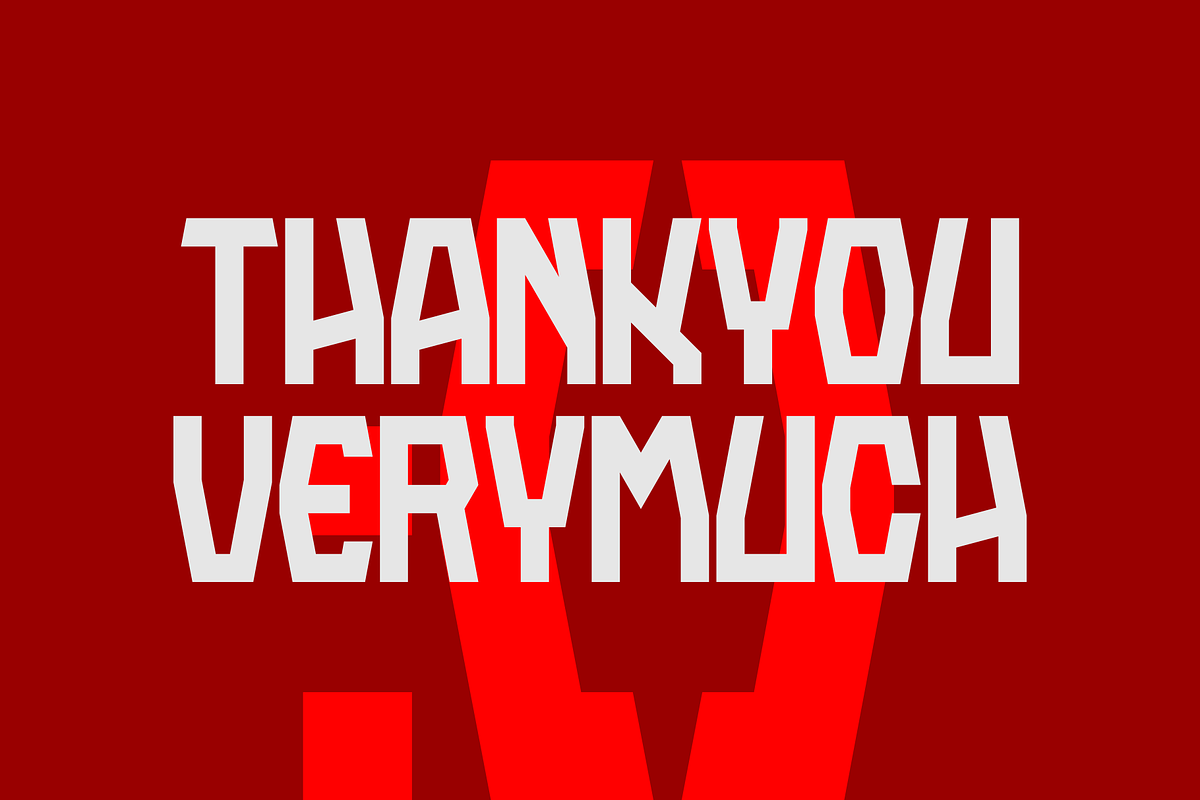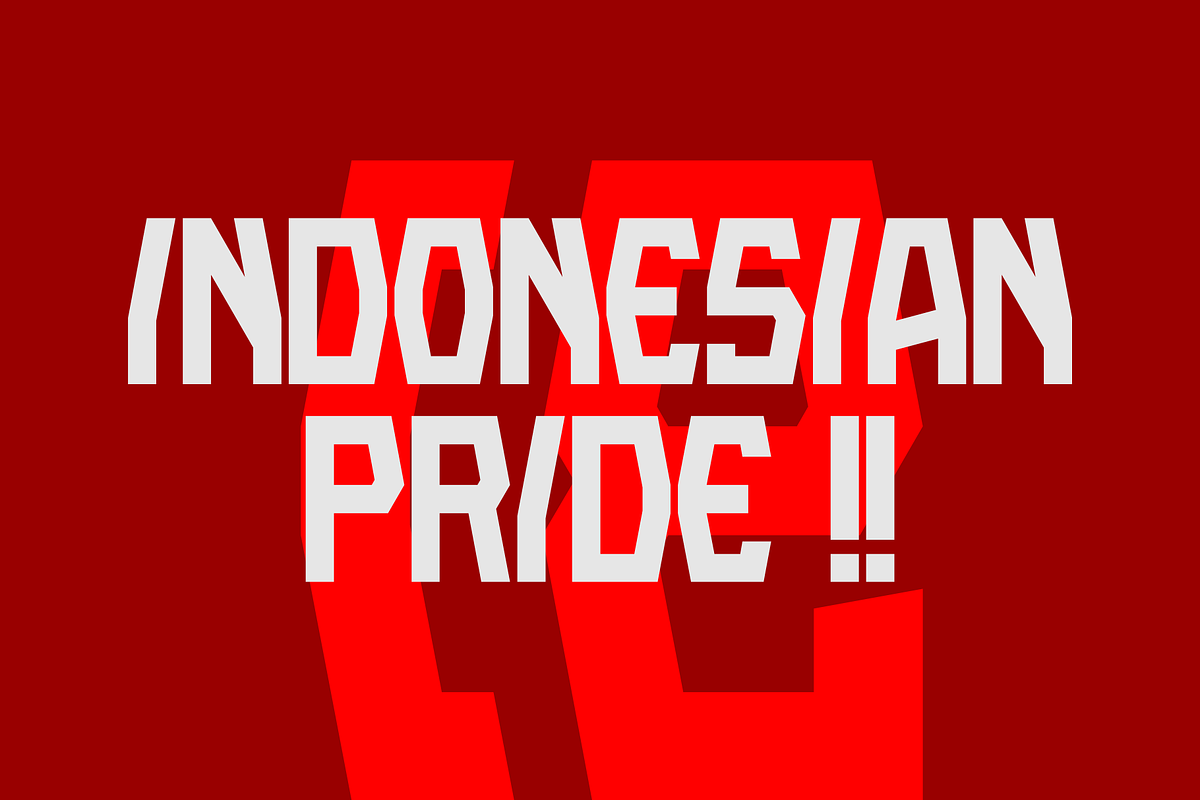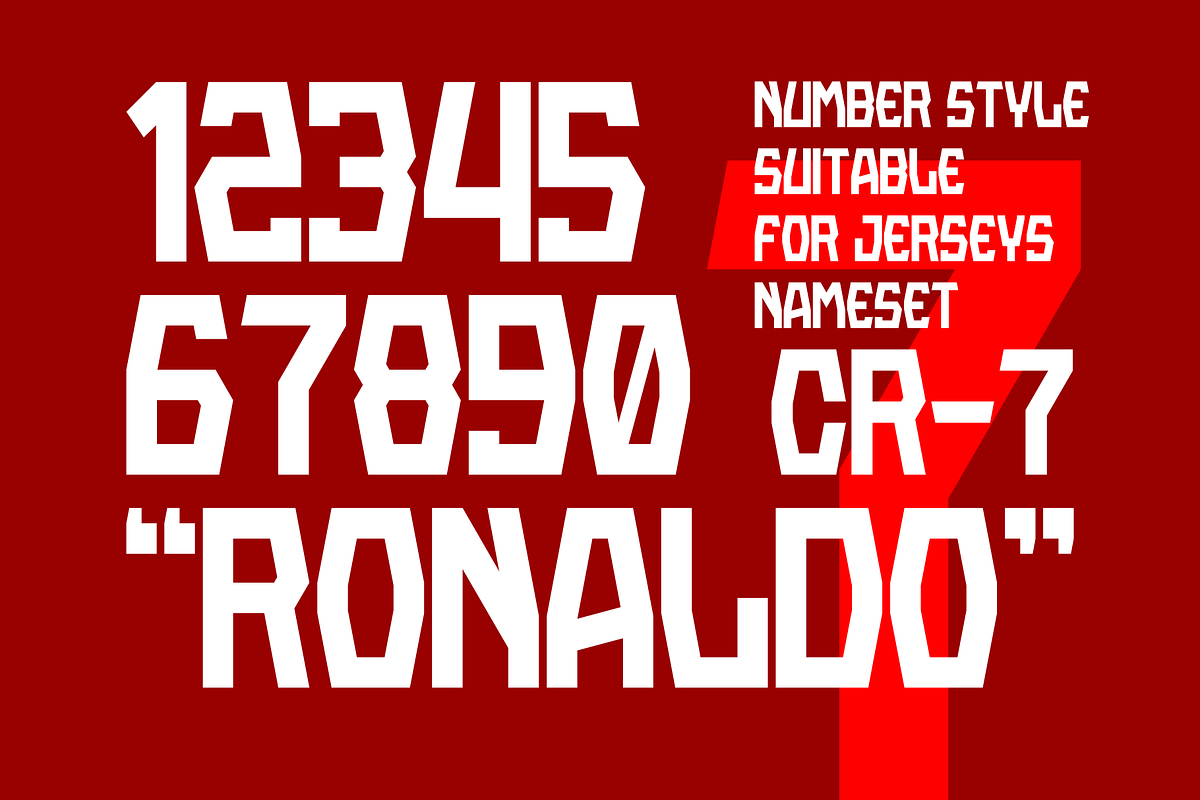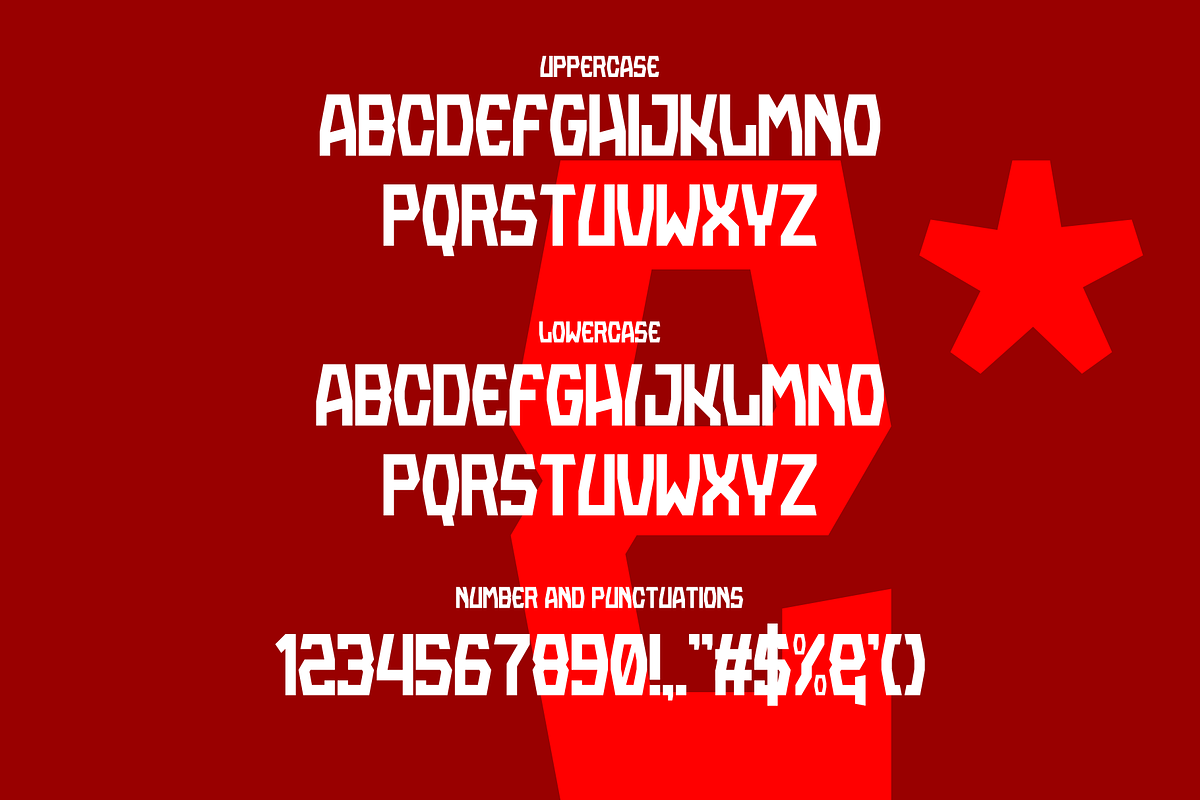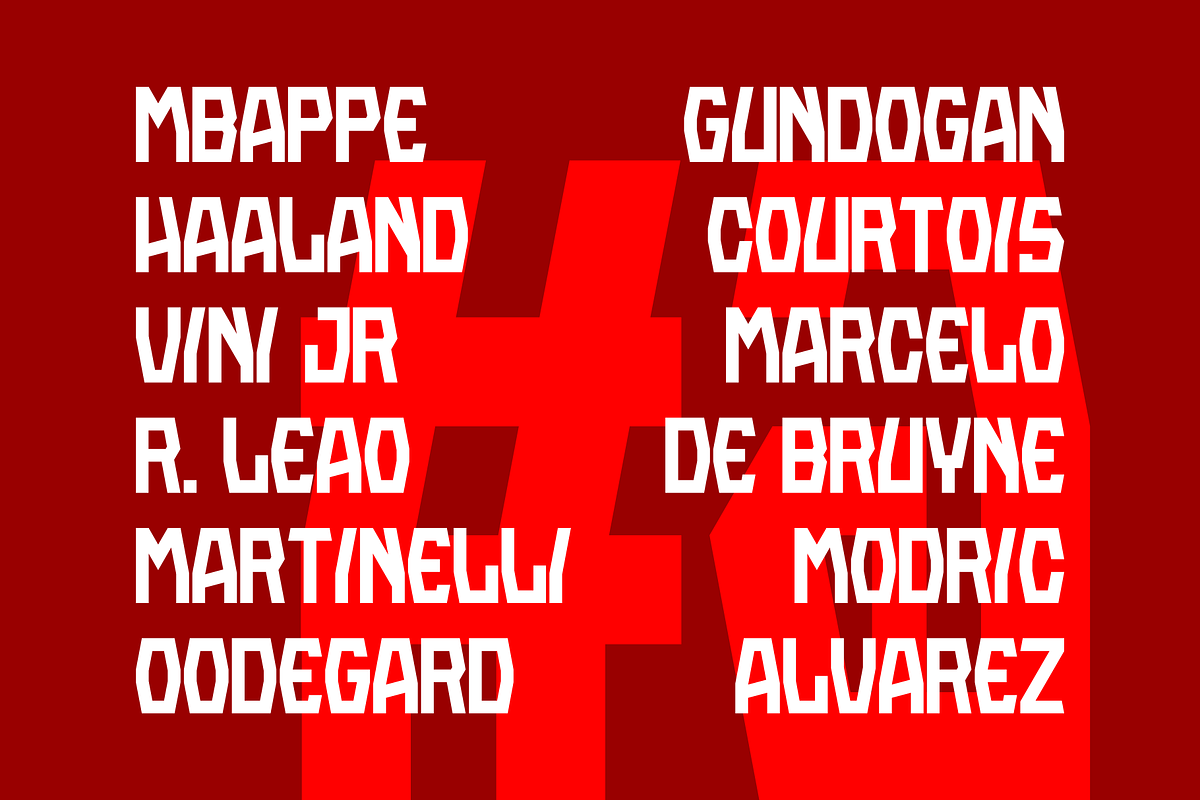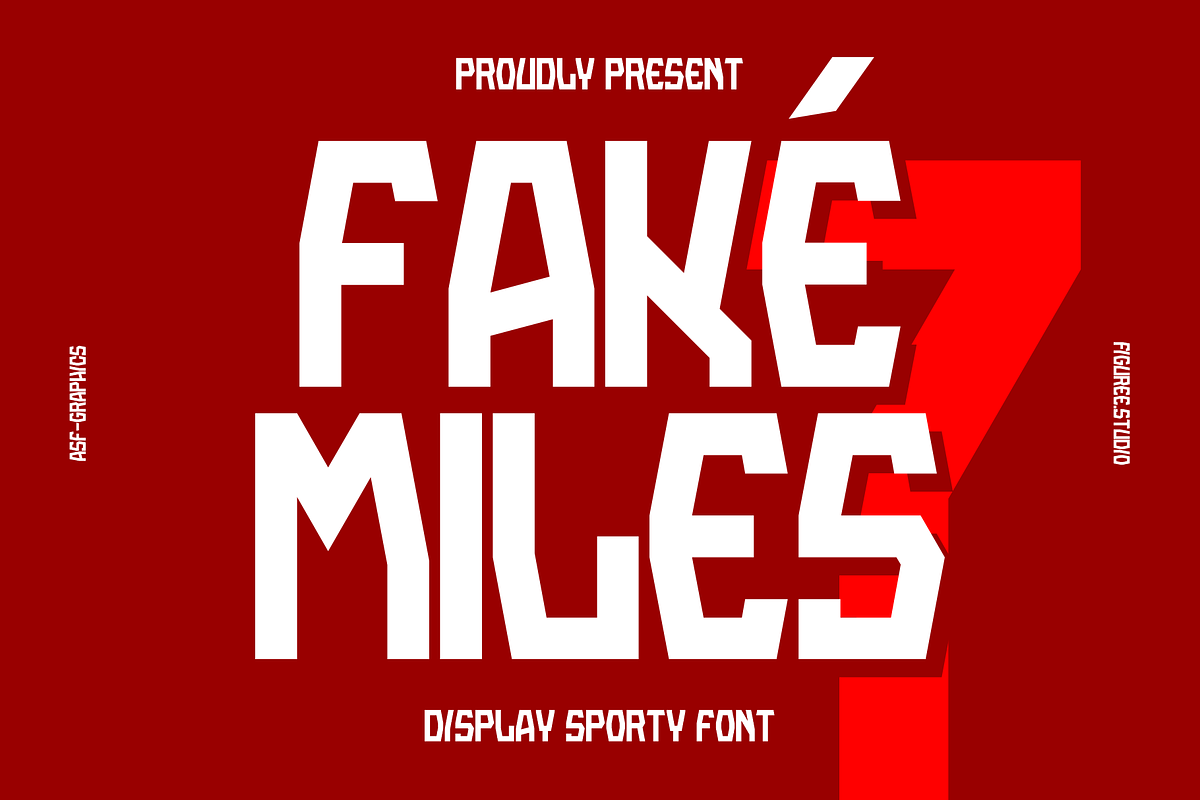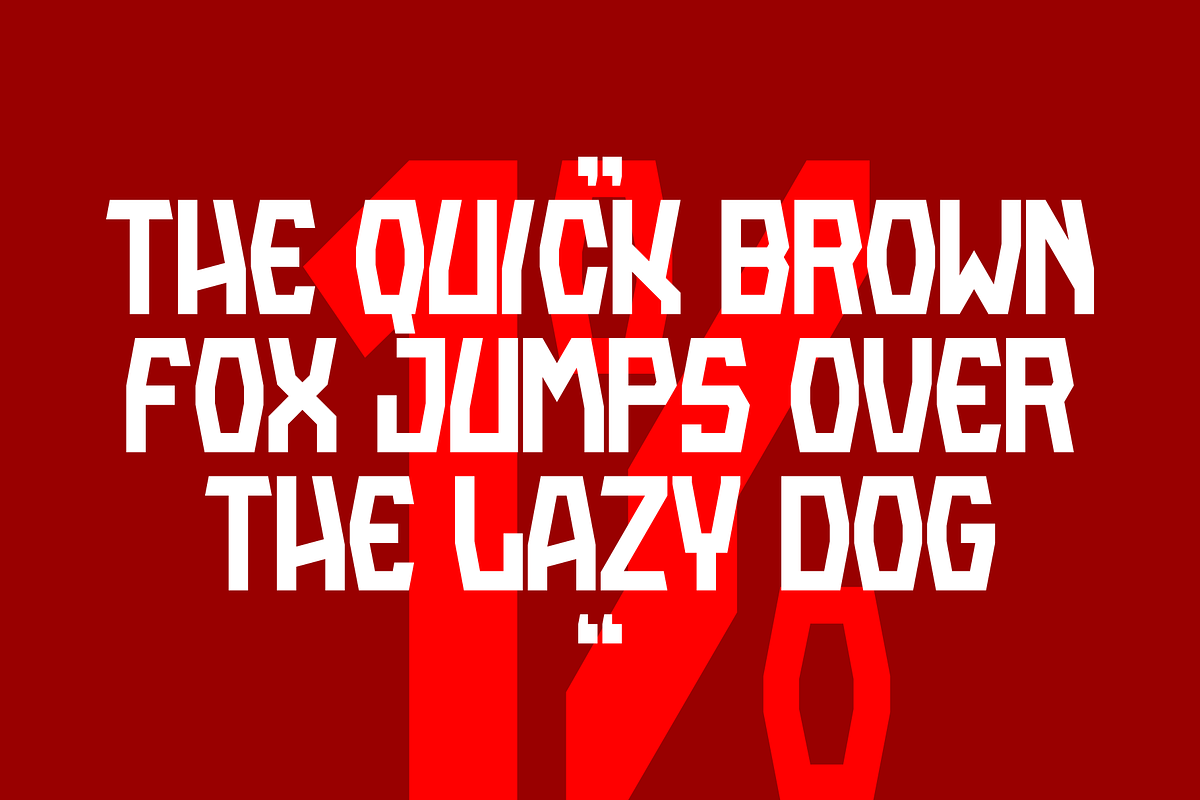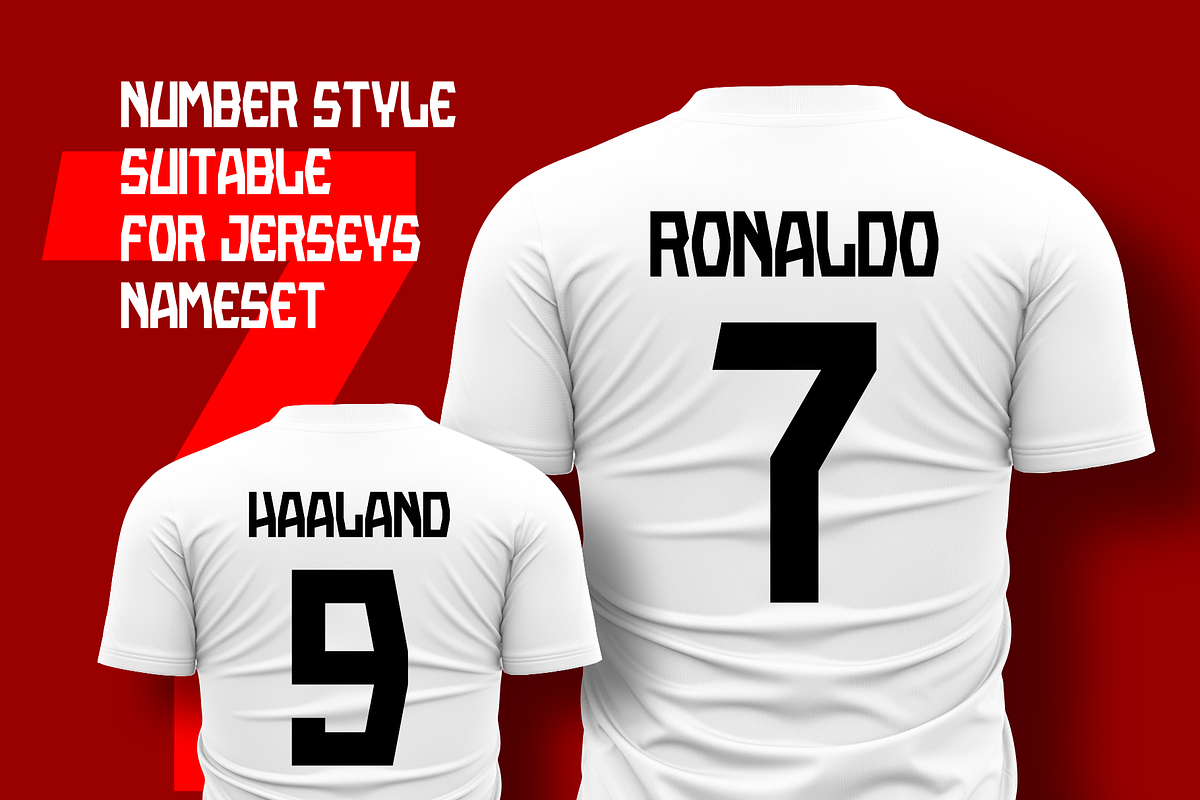
Fakemiles
Introducing Fakemiles Font: Unleash the Spirit of Speed and Style!
Are you ready to inject your projects with a dose of dynamism and vigor? Look no further than "Fakemiles" font – the epitome of sleekness, speed, and sophistication. Crafted with precision and passion, this font is your ultimate companion for everything adrenaline-infused.
Designed to exude power and energy, "Fakemiles" font is perfect for a wide array of applications. Whether you're gearing up for a sporty event, revving up a magazine layout, diving into the gaming world, or dominating the racing scene, this font has got you covered.
With its bold strokes and sharp edges, "Fakemiles" font commands attention and ignites excitement. Every letter is meticulously crafted to convey movement and intensity, setting the stage for your content to shine with unparalleled vitality.
Let your creativity race ahead as you harness the versatility of "Fakemiles" font. Whether you're designing posters, branding materials, digital assets, or editorial spreads, this font effortlessly adds a touch of adrenaline-fueled flair to your creations.
Embrace the spirit of speed and style with "Fakemiles" font – where every letter is a testament to the thrill of the chase and the triumph of excellence.
Get ready to elevate your designs to pole position with "Fakemiles" font – because in the fast-paced world of creativity, only the boldest and the best can truly stand out.